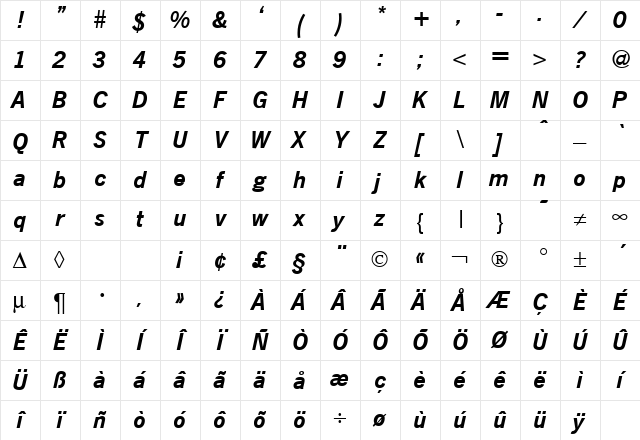
Complete NewsGothicTwo BoldItalic glyph index. Displaying only characters natively supported by NewsGothicTwo BoldItalic font.
NewsGothicTwo takes a clean, functional approach - its unadorned letterforms prioritise legibility and work reliably across screen and print environments. The slanted form adds forward momentum and visual energy. Its bold stroke weight gives it real presence on the page.
Font Pairing: Use NewsGothicTwo for headlines alongside a lighter-weight sans or serif for body copy to establish clear visual hierarchy.
Pro Tip: Use NewsGothicTwo for UI labels, navigation, and short-form body copy where clean legibility is the priority.